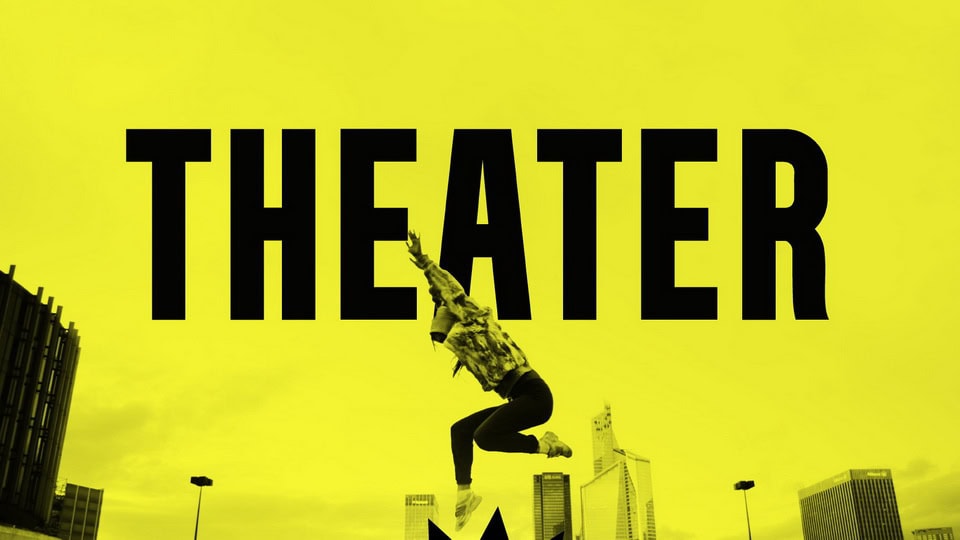
Arca Majora Font is a new sans serif typeface of geometric proportions, with very low contrast and slightly rounded corners. It is very popular for effective display and logo use.
Alfredo Marco Pradil, a very keen graphic designer belonging to UAE, took the charge of creating and sharing it for the first time on 30 September 2016.
With great clarity and unique features, this excellent typeface is currently on the list of the best font families.
Because of its compatible layouts with another basic typeface, it is the most important part of this free font family, enough to engage the reader or viewer.
Whether you need a font for body copy or something for big, bold headlines, this font is an ideal solution.
Due to its solid texture, you can use it for covers, banners, headlines, logos, brochures, game titles, product designs, product packaging, emblems, book covers, magazines, movie posters, and many other places.
It has available in two unique styles including Bold and Heavy. Possesses OpenType format and 80 international language support.